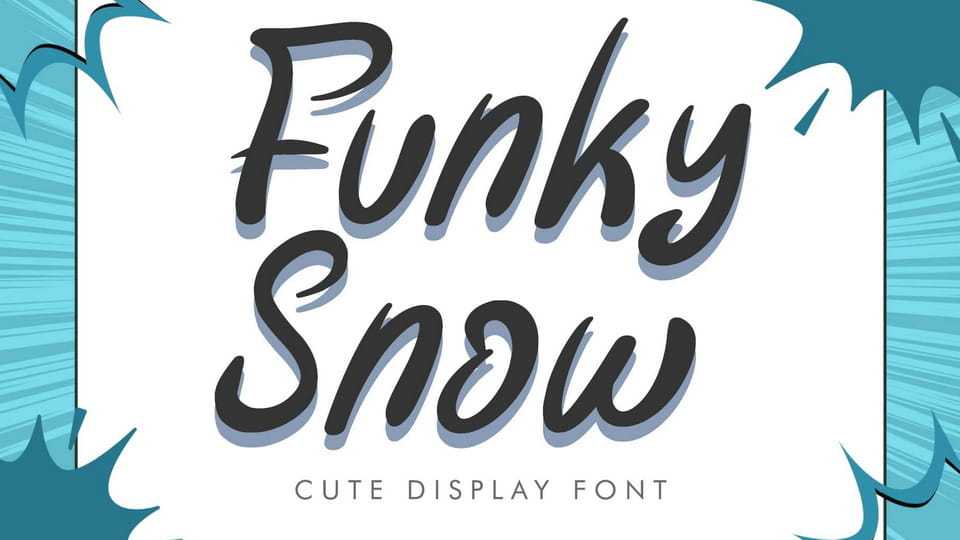
Download Funky Snow font, a bold and cute display typeface that demands attention. This display font is characterized by its heavy, brush-like strokes and dynamic baseline.